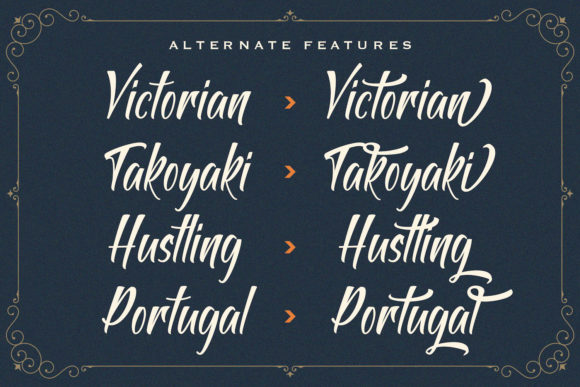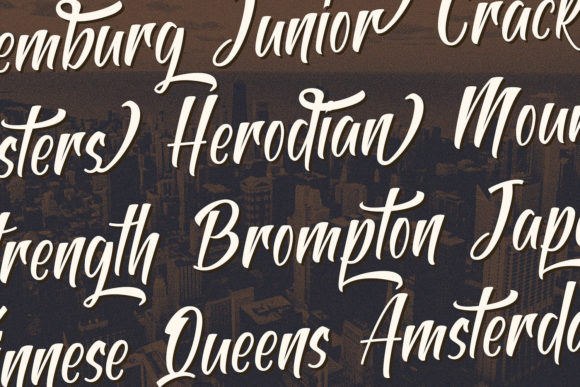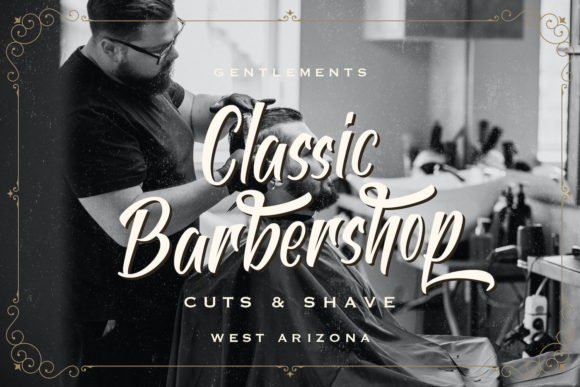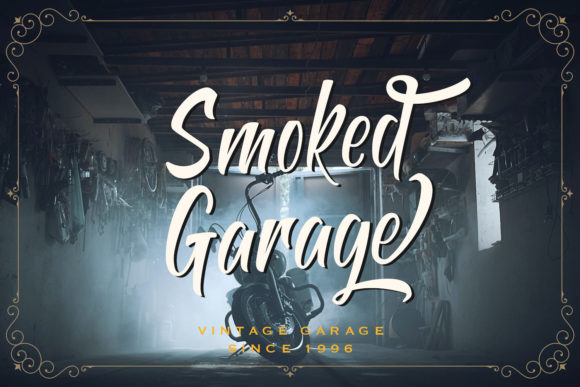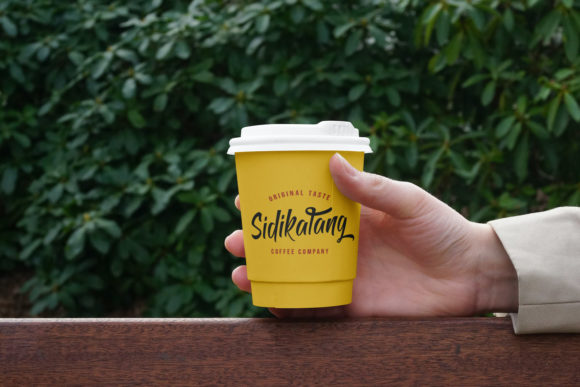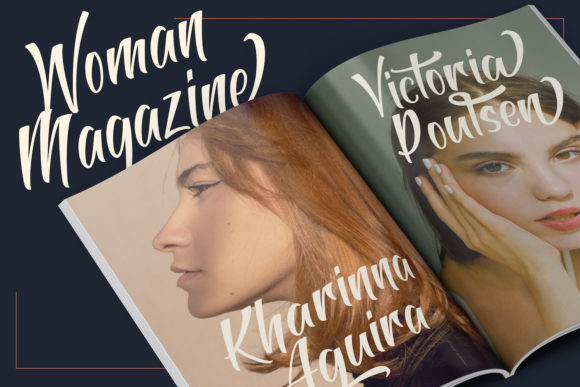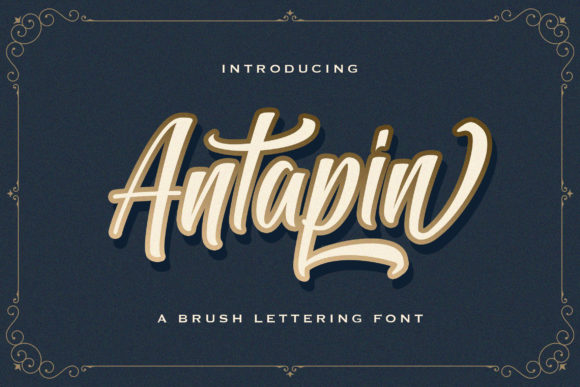
The Enchanting Antapin Font: A Designer’s Dream Come True
I’ll never forget the time I was working on a project for a client who wanted a romantic and whimsical feel. I had a clear vision of what I wanted to create, but I was struggling to find the perfect font to bring it all together. That’s when I stumbled upon the Antapin font, and it was love at first sight! 💕
This enchanting handwritten font has a way of adding a touch of magic to any design project. With its versatile script style, it’s perfect for a wide range of applications, from greeting cards to headlines. In this article, I’ll share my honest review of the Antapin font, provide a practical guide on how to use it, and explore some similar fonts and alternatives.
My Honest Review of Antapin Font
- 💫 The romantic and whimsical feel it adds to any design project
- ✅ PUA encoded, making it easy to access all the beautiful glyphs and swashes
- 🎨 Versatile script style that’s perfect for a wide range of applications
- 👍 Easy to read and understand, even in smaller font sizes
While the Antapin font is amazing, there are a few things to keep in mind:
- 🤔 Some users may find the font a bit too ornate or over-the-top for certain projects
- ⚠️ The font may not be suitable for very formal or professional designs
The Story Behind Antapin Font
The Antapin font was designed by a talented typographer who wanted to create a font that would add a touch of romance and whimsy to any design project. With its enchanting handwritten style and versatile script feel, it’s no wonder that Antapin has become a favorite among designers and crafters.
| Font Name | Antapin Font |
| Author | StringLabs |
Q: What is the Antapin font?
A: The Antapin font is a beautiful, handwritten script font with a romantic and whimsical feel.
Q: Is the Antapin font PUA encoded?
A: Yes, the Antapin font is PUA encoded, making it easy to access all the beautiful glyphs and swashes.
Q: Is the Antapin font easy to read?
A: Yes, the Antapin font is easy to read and understand, even in smaller font sizes.